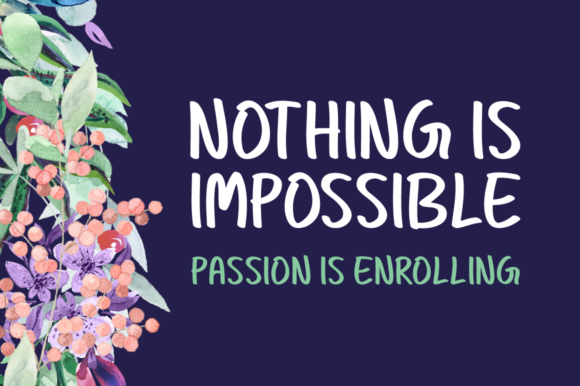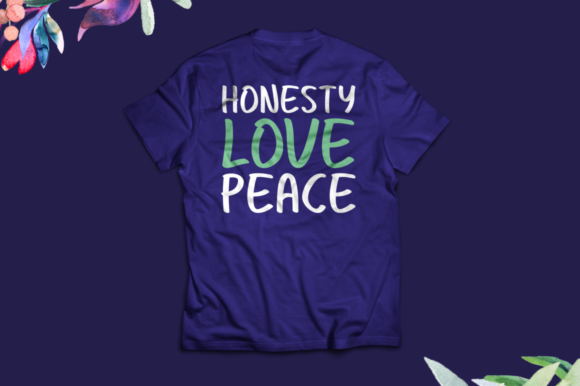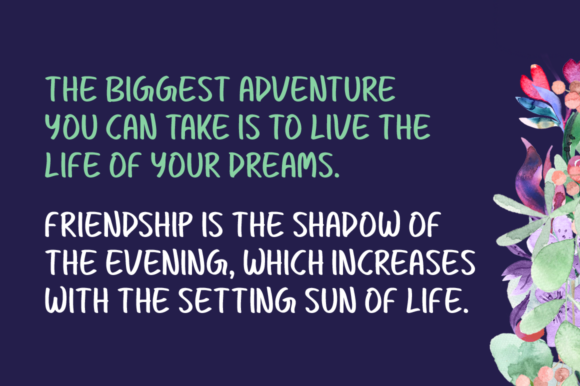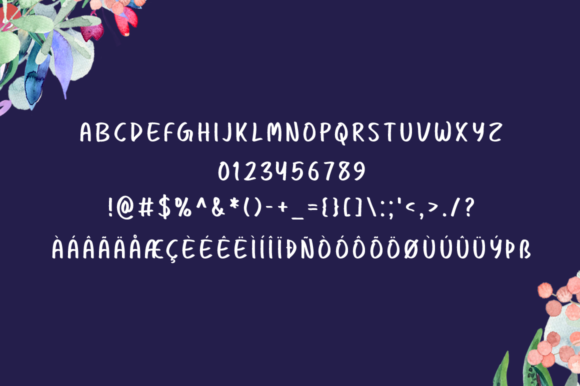
Queenside Font
About Queenside Font
The Queenside is a brand new handwritten font. It has a striking look and is perfectly suited for stationery, logos, t-shirts, papers, print designs, website headers, photo frames, flyers, music covers, posters, image sliders, and much more!